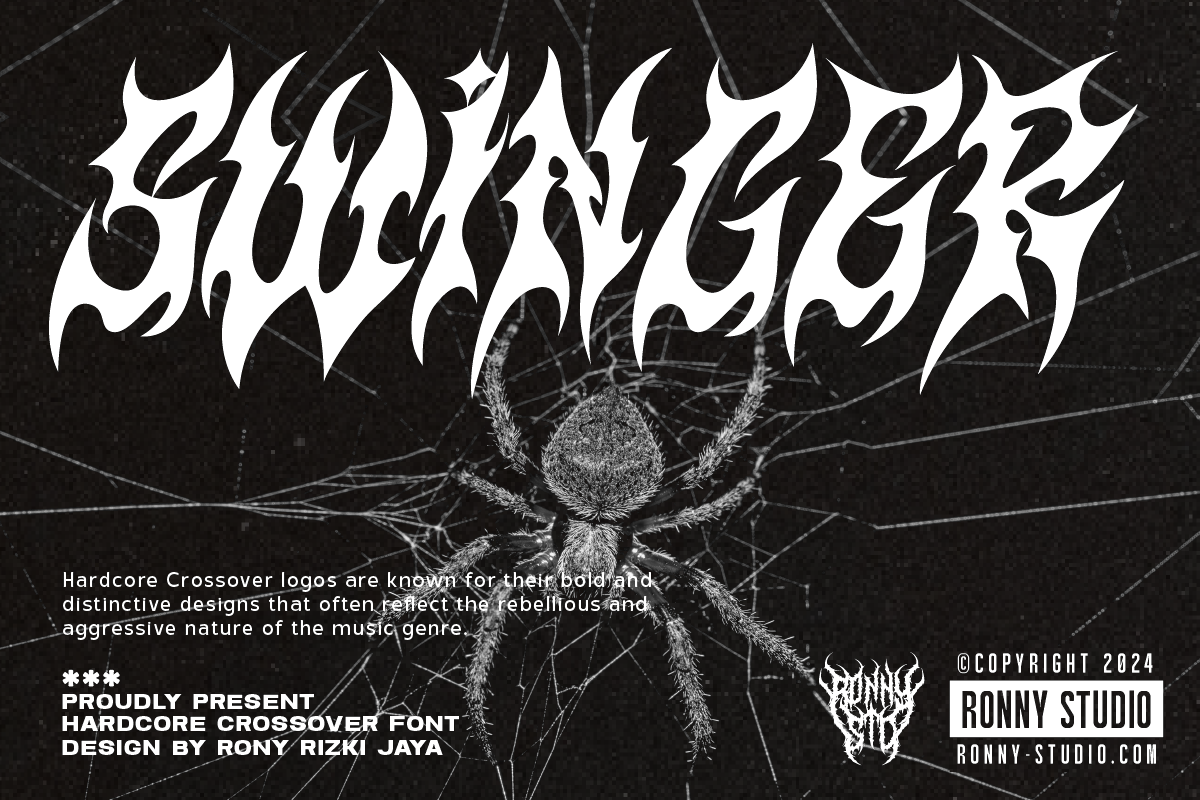
Swinger - Hardcore Crossover Font
Swinger is an aggressive display font inspired by hardcore, crossover, punk, and heavy metal culture.
Built with sharp, powerful letterforms and an underground attitude, Swinger is designed for typography that needs to hit hard and stand out.
Perfect for hardcore band logos, metal merchandise, streetwear, album artwork, concert posters, apparel, tattoos, and underground branding.
• Hardcore Band Logos • Crossover & Metal Graphics • Punk & Underground Designs • Band Merchandise • Streetwear & Apparel • Album Covers • Concert Posters • Event Flyers • Tattoo Designs • Horror & Dark Artwork • Logo & Branding
Swinger is made for designers who want an aggressive typeface with a raw hardcore and underground character.